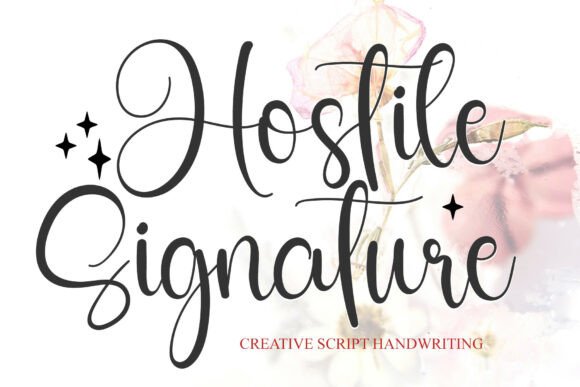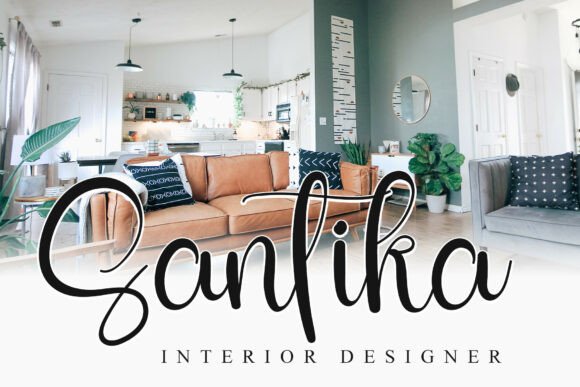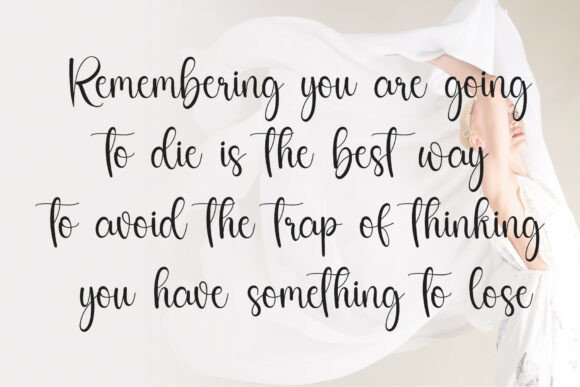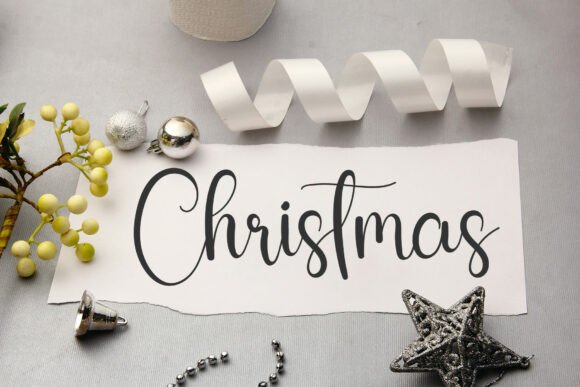
Hostile Signature Font: Elegant Script for Branding & DIY Projects
About the Hostile Signature Font
The Hostile Signature Font offers a perfect balance of form and function for your design needs. Hostile Signature is an extraordinary font that combines the beauty of handwritten strokes with a bold and playful display style. With its smooth curves, artistic flair, and charming personality, this font is perfect for adding a fun yet elegant touch to any creative project. Whether you need a whimsical, casual, or stylish look, Cherry Rainbows delivers a truly remarkable design experience.
Hostile Signature excels in headlines, short slogans, and logos where its bold, playful nature can make a strong visual statement. It’s ideal for branding projects targeting a youthful or rebellious audience, as well as packaging for products with a similarly energetic feel. Avoid using it for body text or lengthy paragraphs; its highly stylized forms are not easily legible at smaller sizes.
Pairing Hostile Signature effectively requires a contrasting typeface. A clean, geometric sans-serif like Montserrat would provide a strong counterpoint, while a more traditional serif like Garamond could offer a sophisticated balance. For a more playful feel, consider a rounded sans-serif like Lato.
The font’s core personality is bold and playful, yet maintains a touch of elegance due to its refined stroke work. This makes it suitable for brands seeking to project a confident, creative, and slightly rebellious image.
Hostile Signature Font Usage Examples
Hostile Signature Font Example